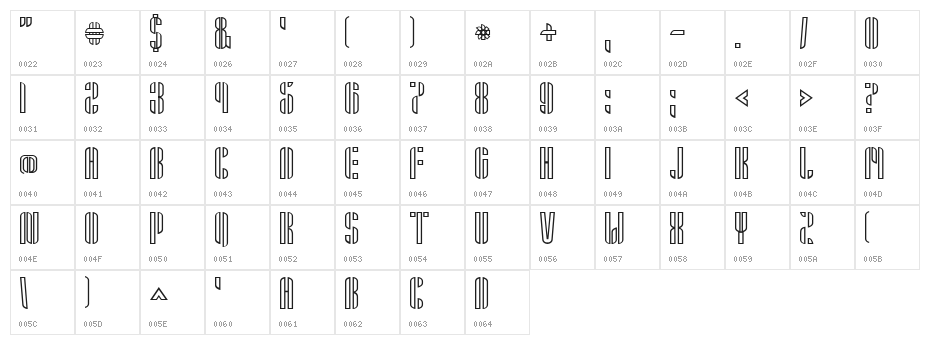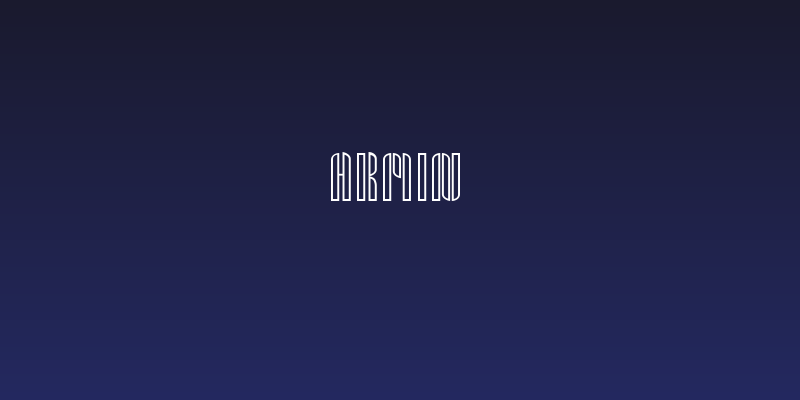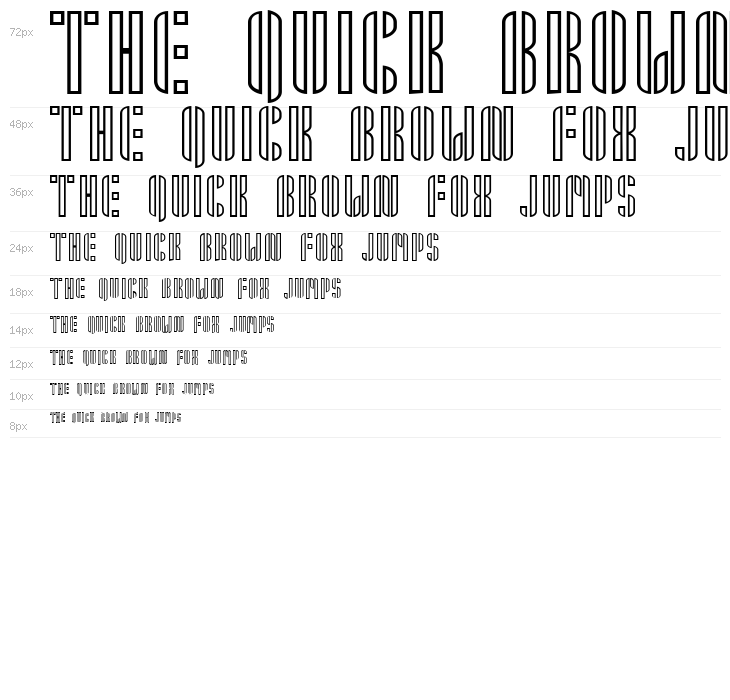
Armin Font
Armin Description
This font features a unique, geometric design with a strong emphasis on vertical lines and symmetry. Each character is constructed with bold, straight lines that create a sense of structure and modernity. The uppercase and lowercase letters maintain a consistent style, with a narrow width and high contrast between the thick and thin strokes. The numbers and special characters follow the same design principles, ensuring uniformity across the entire set. This font's distinct style makes it stand out, offering a futuristic and architectural feel.
| Proposed Projects | Ideal for branding, logos, posters, and any project requiring a modern, structured aesthetic. |